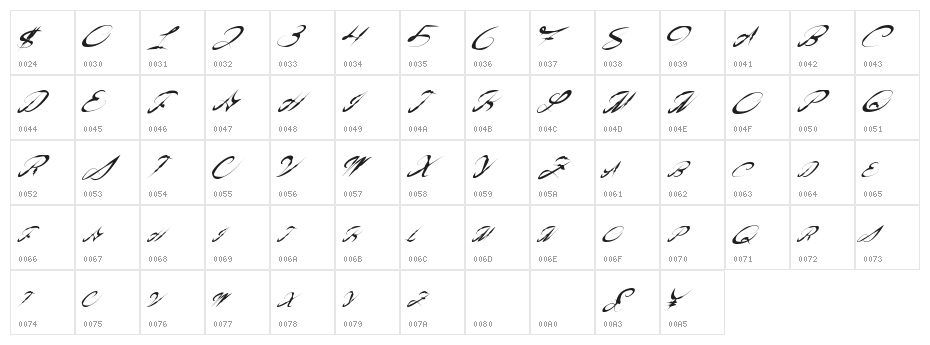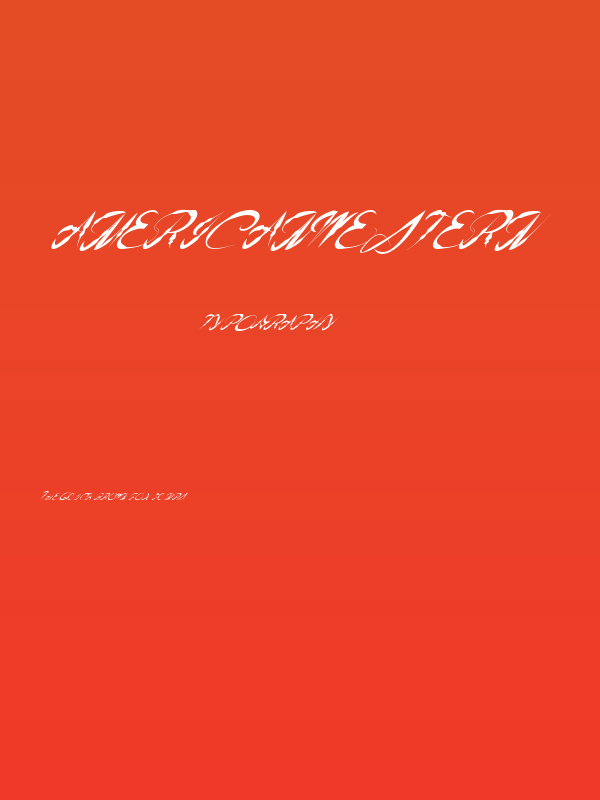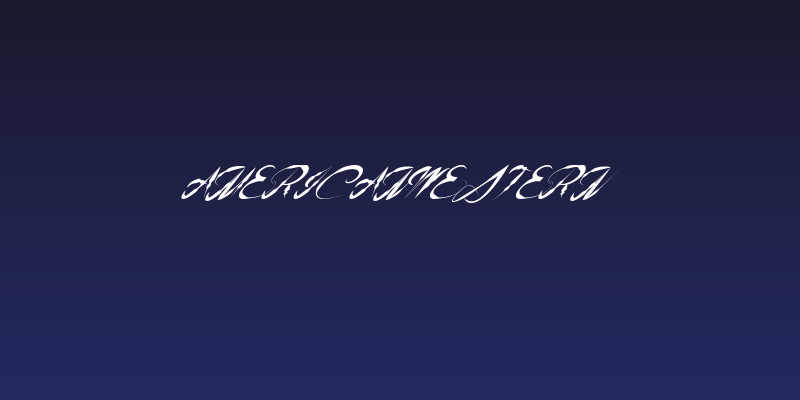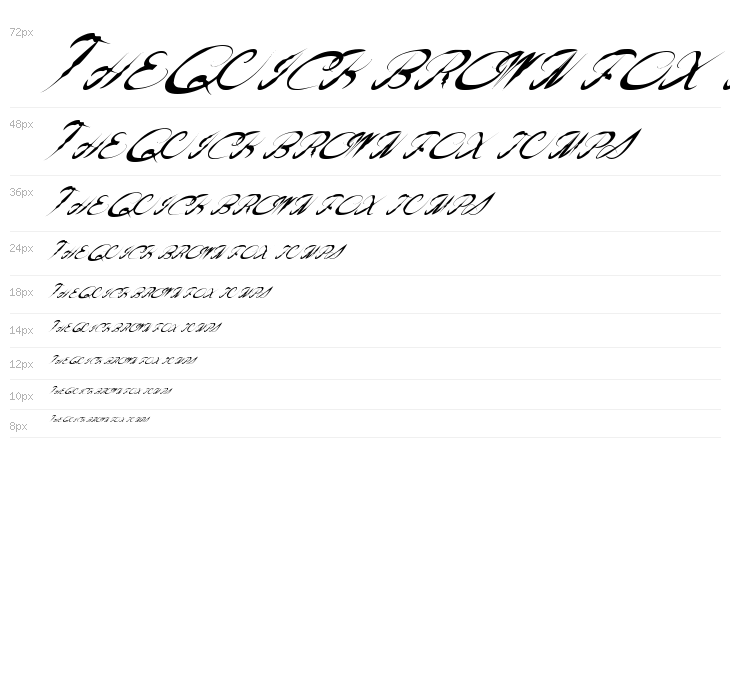
AmericanWestern Font
AmericanWestern Description
This font exudes a bold and dynamic flair, characterized by its sweeping, cursive strokes and dramatic flourishes. The letters are intricately designed with a high contrast between thick and thin lines, giving it a striking appearance. The uppercase and lowercase letters maintain a consistent style, with elongated ascenders and descenders that add to its elegant yet assertive look. The numerals and special characters are equally stylized, ensuring a cohesive visual experience across all elements. This font's unique style makes it stand out, ideal for projects that require a touch of sophistication and boldness.